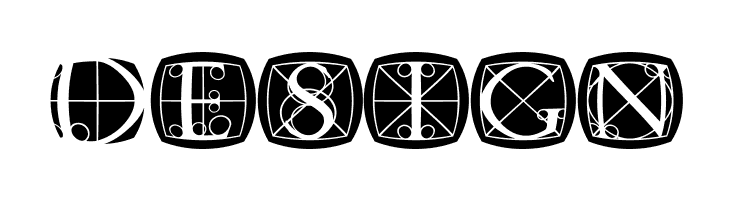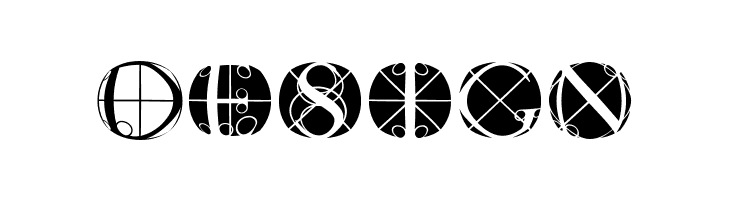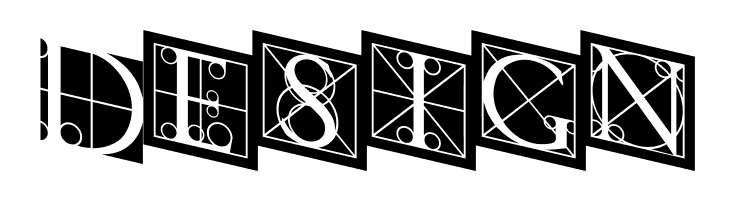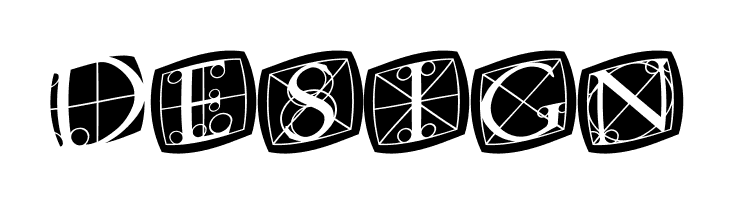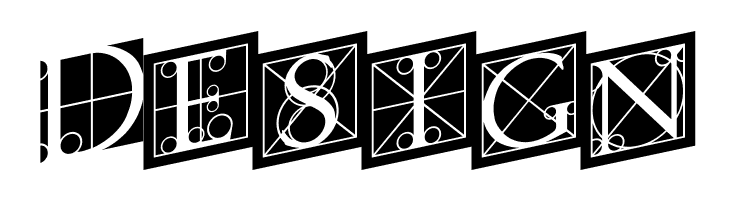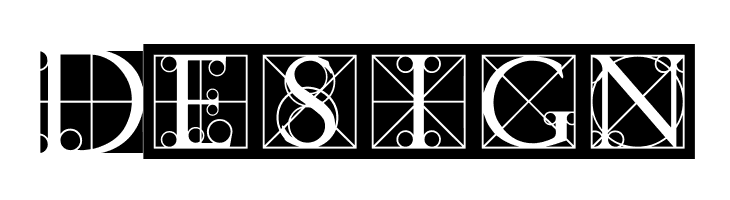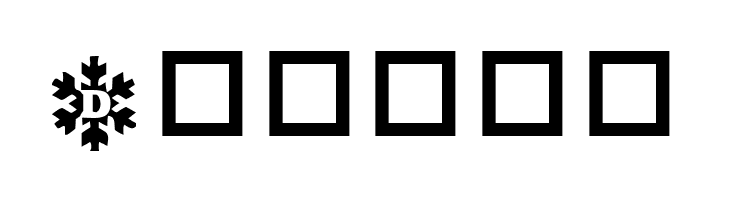
UKIJ Nasq Font
A decorative font with circular, geometric patterns and rounded enclosures.
A decorative font with circular, geometric, and artistic elements.
A decorative, geometric font with uppercase letters in framed designs.
A bold, decorative font with rounded edges and intricate geometric patterns.
A decorative font with circular frames and intricate geometric patterns.
A decorative and geometric font with intricate line work and circular patterns.
An ornate and decorative font with intricate detailing and vintage flair.